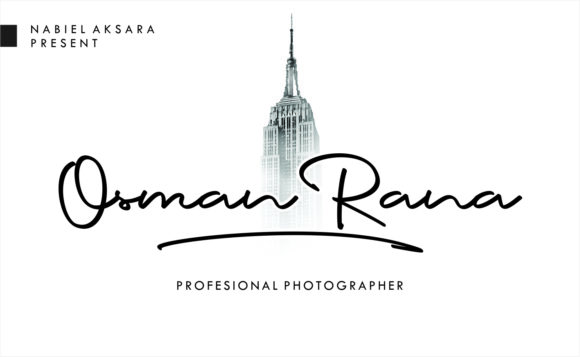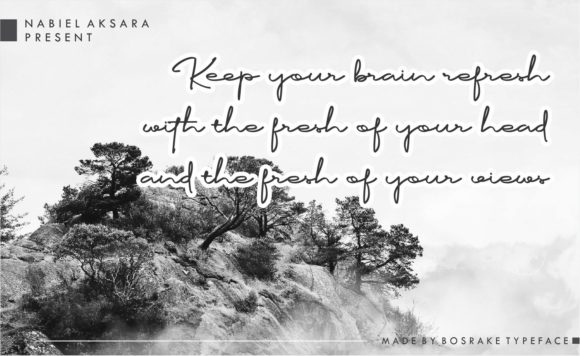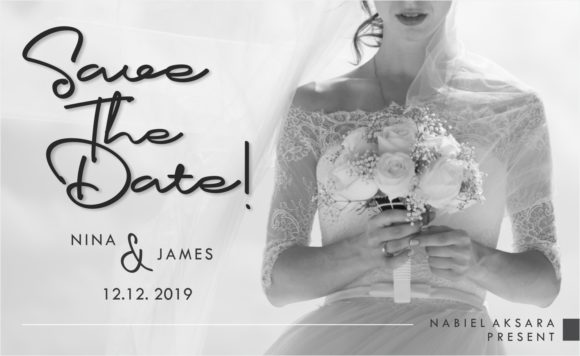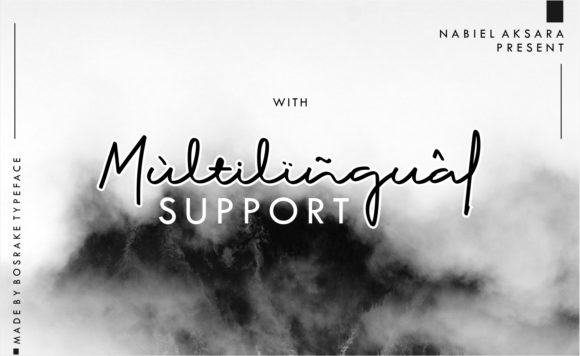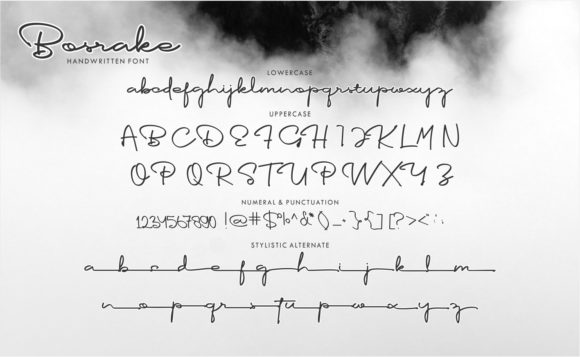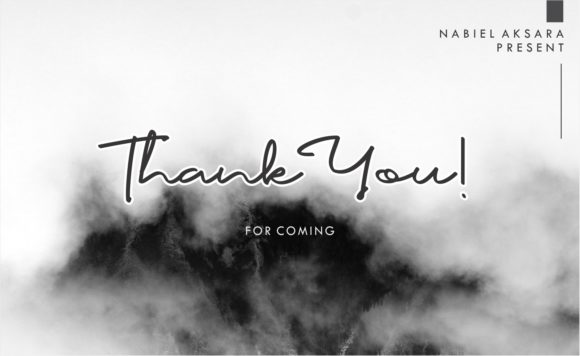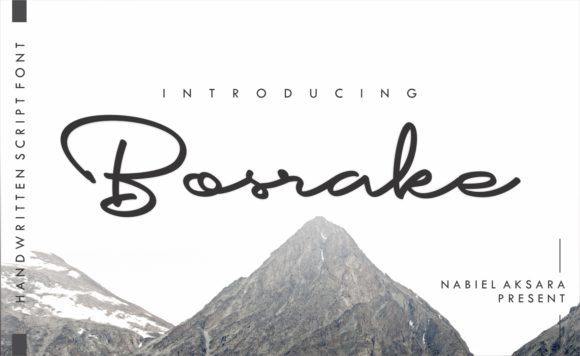
The Elegance of Bosrake Font: A Designer’s New Best Friend
I’ll never forget the time I was working on a branding project for a high-end boutique hotel. I had the logo, the color palette, and the overall aesthetic nailed down, but something was missing. The font I had chosen just wasn’t giving me the sophisticated vibe I was going for. That’s when I stumbled upon Bosrake Font, and let me tell you, it was love at first sight! 💕
Bosrake is an elegant handwritten font with an authentic vibe that instantly elevated my design to the next level. Its unique blend of classic and modern elements makes it perfect for adding a touch of sophistication to any design project. In this article, I’ll share my experience with Bosrake, its features, and how to make the most of it in your designs.
An Honest Review of Bosrake Font
- ✨ Elegant and sophisticated feel
- 💫 Unique character set with OpenType features
- 🎨 Versatile and works well for various design projects
While Bosrake is an amazing font, there are a few things to keep in mind:
- 🤔 Limited availability of certain characters
- ⚠️ May not work well for very large or very small text sizes
A Practical Guide to Using Bosrake Font
- Experiment with OpenType features, such as ligatures and stylistic alternates, to add more personality to your text
- Explore the glyphs and OpenType features to add more depth to your design
The Story Behind Bosrake Font
Bosrake was designed by a talented type designer who’s passionate about creating elegant and authentic fonts. The story goes that the designer was inspired by traditional handwritten scripts and wanted to create a font that captured the essence of classic elegance. With Bosrake, they aimed to create a font that’s both sophisticated and approachable.
Q: What makes Bosrake Font unique?
A: Bosrake’s unique blend of classic and modern elements, along with its elegant handwritten feel, sets it apart from other fonts.
Q: Is Bosrake suitable for body text?
A: While Bosrake is highly legible, it’s best suited for headlines, titles, and short paragraphs. For longer body text, you may want to consider a more traditional serif or sans-serif font.